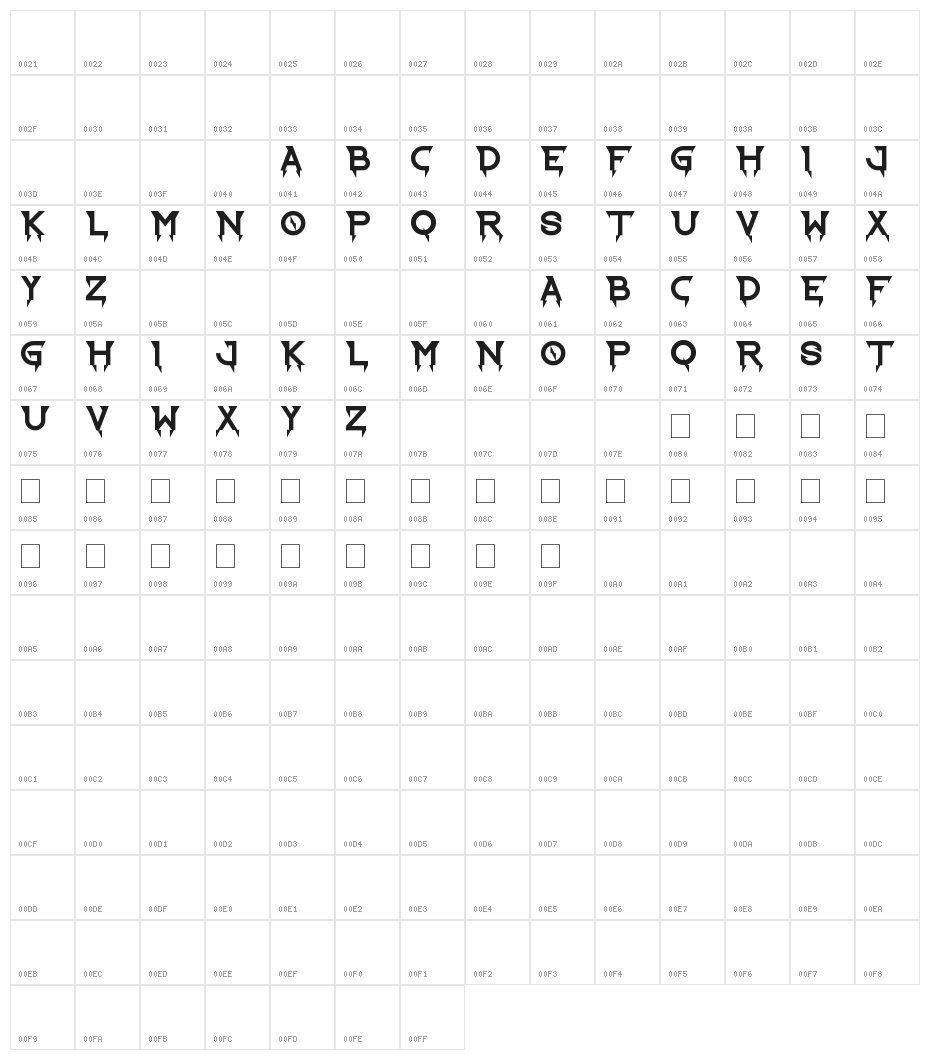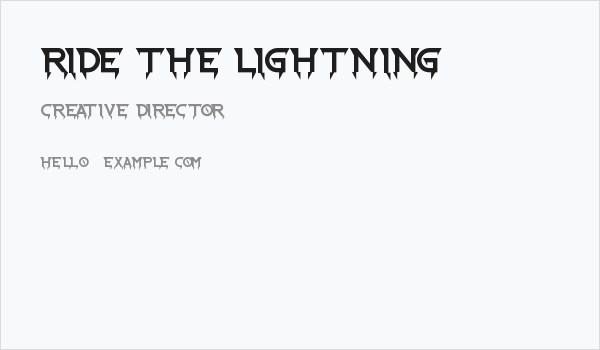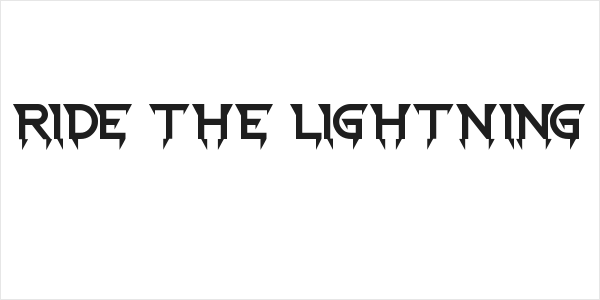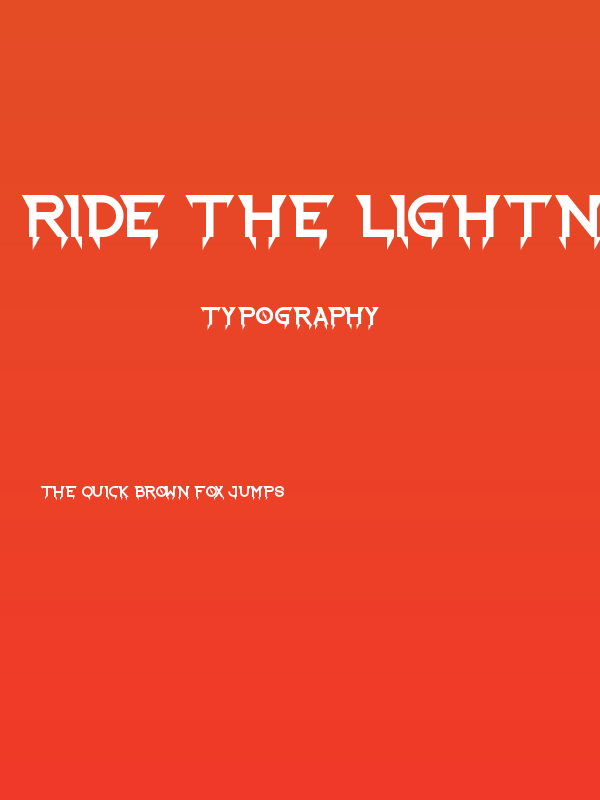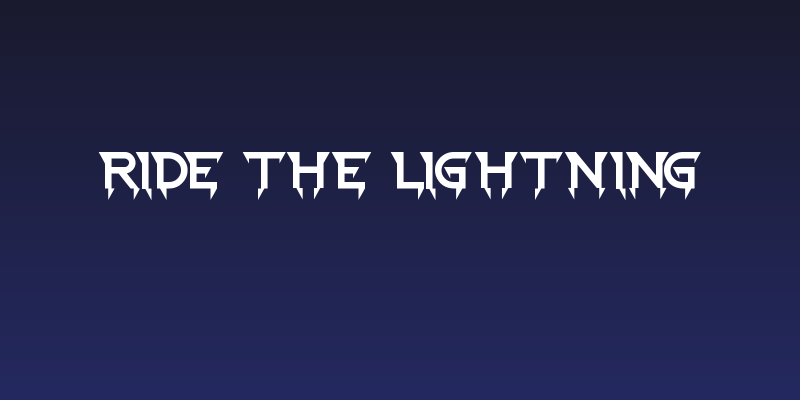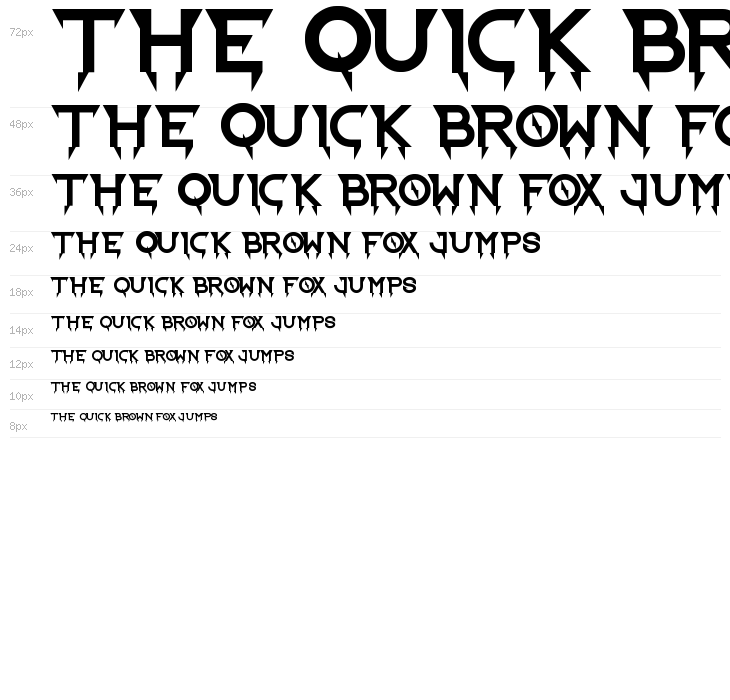
Ride the Lightning Font
Ride the Lightning Description
This font features a bold and electrifying design, characterized by sharp, angular edges and a dynamic, energetic style. The letters are crafted with a sense of movement, reminiscent of lightning bolts, giving it a striking and powerful appearance. The uppercase letters are uniform in height, maintaining a consistent baseline, while the angular cuts and pointed serifs add a sense of aggression and intensity. The font's unique style makes it stand out, making it ideal for projects that require a bold and impactful visual statement.
| Proposed Projects | Ideal for music album covers, event posters, video game titles, and branding for edgy or high-energy products. |